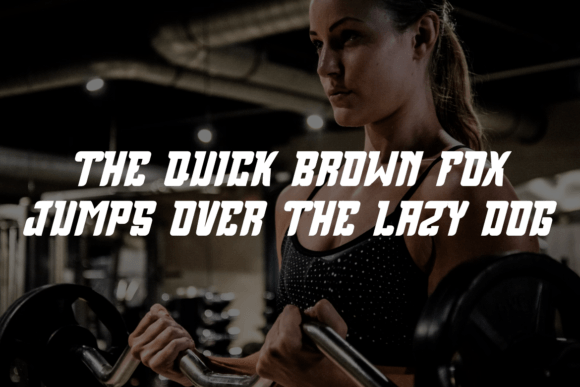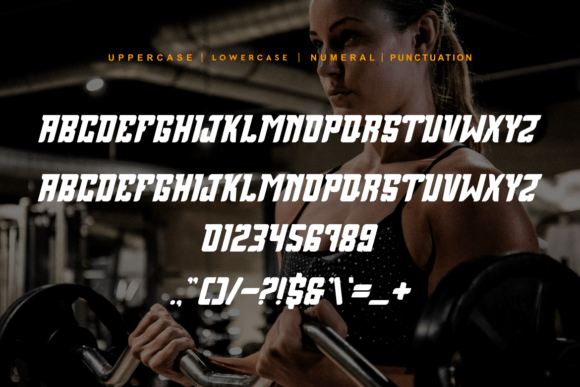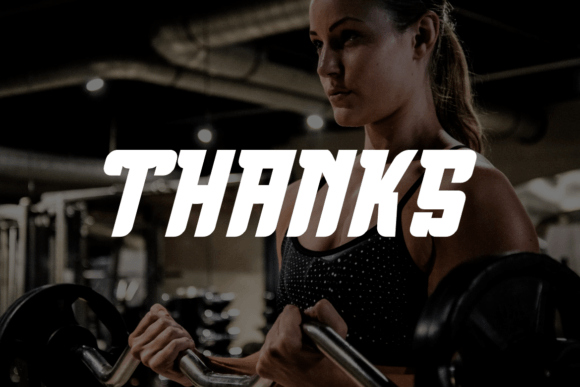
Unlock Your Creative Potential with Apem Gemoy Font
In the world of design, a font can make all the difference in bringing your creative vision to life. If you’re a designer, craftsperson, or simply someone who appreciates the art of typography, you’re in for a treat. Introducing the Apem Gemoy Font, a unique and versatile typeface that seamlessly links form and function. This exceptional font is perfectly crafted for a wide range of design applications, including labeling, movie scenes, eye-catching posters, cinematic movie titles, energetic gig displays, stylish album covers, distinct logos, and beyond.
What Sets Apem Gemoy Font Apart
The Apem Gemoy Font is not just another ordinary font. Its distinctive design and comprehensive utility make it a standout in the world of typography. Here are some key features that set it apart:
- Unique Design: The Apem Gemoy Font boasts a one-of-a-kind design that is sure to capture attention and leave a lasting impression.
- Wide Range of Applications: From labeling and movie scenes to posters, movie titles, gig displays, album covers, logos, and more, this font is perfect for a wide range of design applications.
Sculpt Your Creative Vision
With the Apem Gemoy Font, you can bring your creative vision to life like never before. Its unique design and versatility make it the perfect tool for designers and craftspersons who want to push the boundaries of their creativity. Whether you’re working on a movie project, designing a poster, or creating a logo, this font is sure to help you achieve your goals.
Perfect for Design Applications
The Apem Gemoy Font is perfectly crafted for a wide range of design applications, including:
- Labeling: Create eye-catching labels that stand out from the crowd.
- Movie Scenes: Add a touch of drama and excitement to your movie scenes with this exceptional font.
- Eye-Catching Posters: Create posters that grab attention and leave a lasting impression.
- Cinematic Movie Titles: Give your movie titles a professional and cinematic look with the Apem Gemoy Font.
- Energetic Gig Displays: Create energetic and eye-catching gig displays that showcase your brand’s personality.
- Stylish Album Covers: Design stylish and attention-grabbing album covers that reflect the music and style of the artist.
- Distinct Logos: Create unique and memorable logos that set your brand apart from the competition.
Comprehensive Utility
Take Your Creativity to New Heights
With the Apem Gemoy Font, you can take your creativity to new heights. Its unique design, versatility, and comprehensive utility make it the perfect tool for designers and craftspersons who want to push the boundaries of their creativity. So why wait? Unlock your creative potential with the Apem Gemoy Font today and bring your creative vision to life like never before.
In conclusion, the Apem Gemoy Font is a unique and versatile typeface that is perfect for designers, craftspersons, and anyone who appreciates the art of typography. Its distinctive design, comprehensive utility, and wide range of applications make it a standout in the world of typography. Whether you’re working on a movie project, designing a poster, or creating a logo, this font is sure to help you achieve your goals. So why wait? Get your hands on the Apem Gemoy Font today and start sculpting your creative vision like never before.